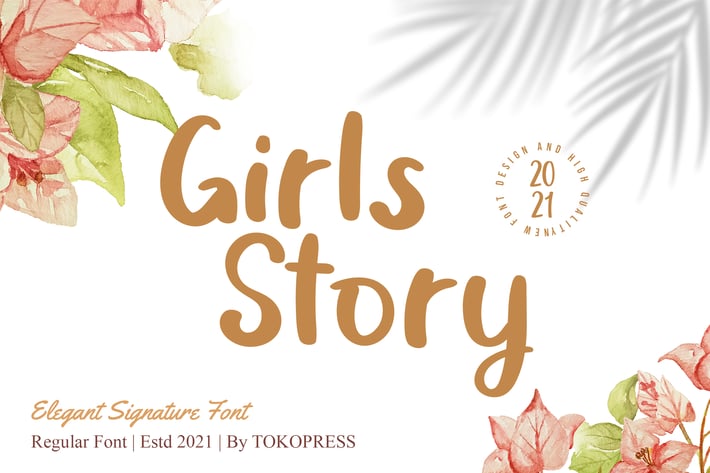
Girls Story - Fancy handwriting font
Girls Story - Fancy Handwriting Font
Girls Story is a modern signature-style handwritten font that combines a natural letter rhythm with feminine flair and warm personality. Featuring bouncy baselines, soft curves, and rounded terminals, this script-style display typeface evokes a lighthearted and elegant feel—ideal for lifestyle, beauty, and fashion brands.
Its relaxed, hand-drawn look gives it a distinctly approachable tone that fits perfectly in Instagram content, product packaging, editorial layouts, or boutique branding. The font’s proportions allow for effortless pairing in both digital and print contexts while keeping the viewer emotionally engaged.
Use Girls Story to add a personal, handwritten touch that brings warmth and softness to your design. Whether you're crafting bridal invitations, beauty product labels, inspirational quote graphics, or home décor mockups, this font helps convey a feeling of joy, intimacy, and charm.
Its versatility allows it to shine across multiple creative industries—especially in modern branding for women-led businesses, wellness brands, handmade products, or storytelling-style editorial pieces.
- Bouncy script with a friendly, handwritten texture
- Smooth letter connections and feminine flair
- Beautiful for logos, branding, blogs, cards, and wedding stationery
- Excellent readability at display and medium sizes
- Instagram posts and lifestyle quotes
- Wedding stationery and invitations
- Fashion lookbooks and boutique packaging
- Journaling apps and planner layouts
- Wellness, spa, and natural beauty brands